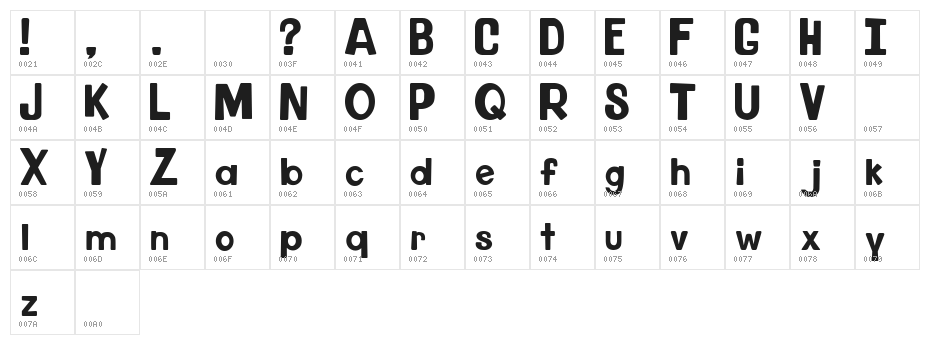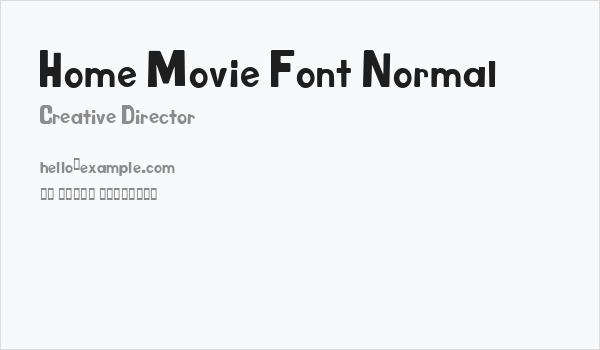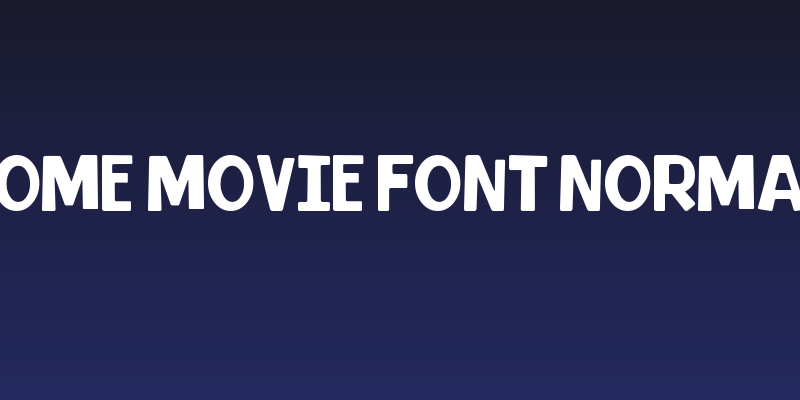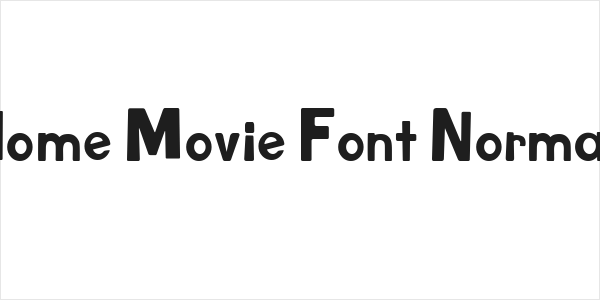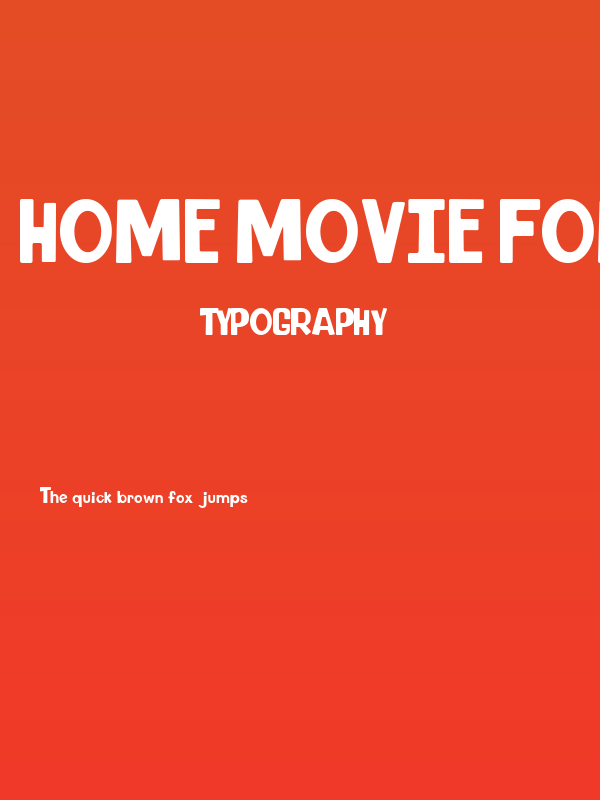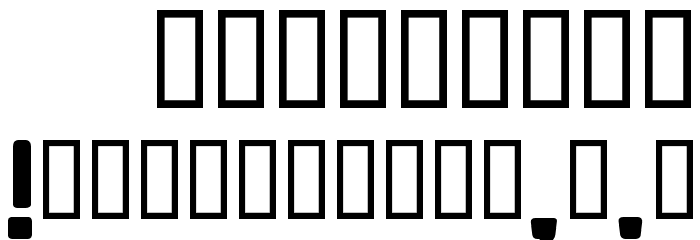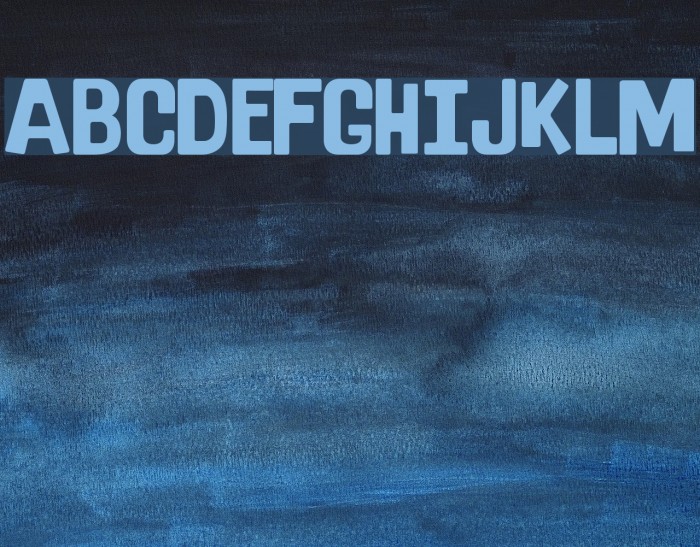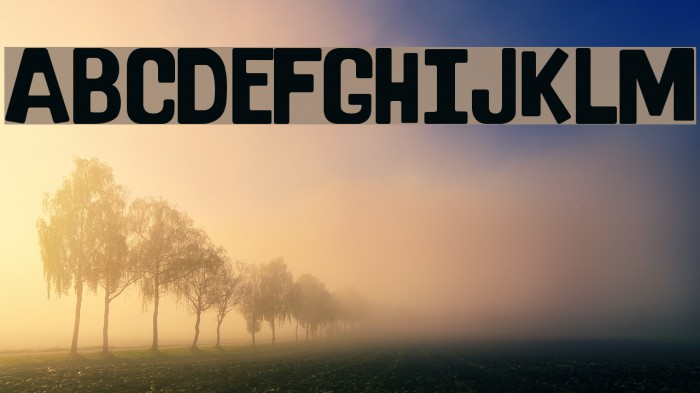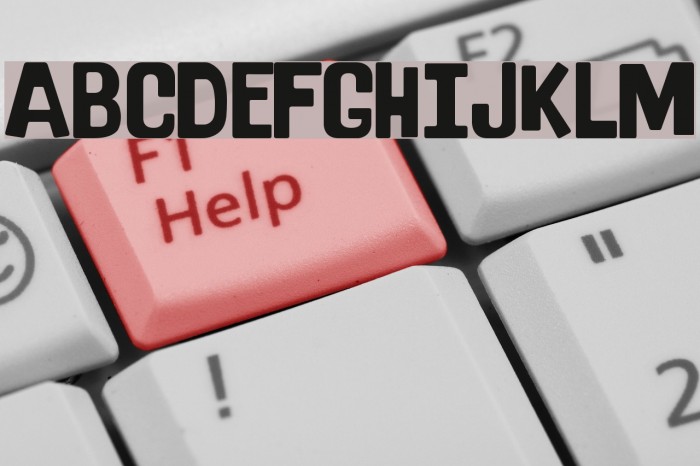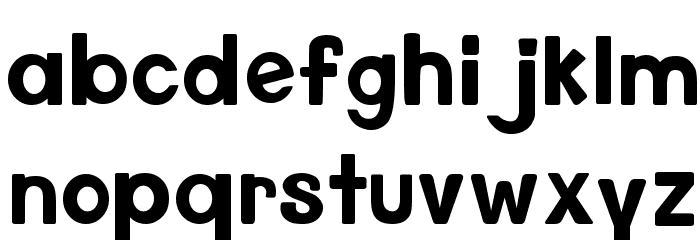
Home Movie Font Normal Font
Home Movie Font Normal Description
This font features bold, rounded characters with a playful and friendly appearance. The uppercase letters are robust and evenly spaced, while the lowercase letters maintain a consistent weight, enhancing readability. The numbers and special characters follow the same design principles, ensuring a cohesive look across all text elements. The font's style is reminiscent of retro signage, making it ideal for projects that require a touch of nostalgia. Its boldness and clarity make it suitable for headlines and titles, where impact and legibility are crucial.
| Overall Style | Retro, Playful |
| Proposed Projects | Ideal for movie posters, children's books, retro-themed designs, and playful branding. |